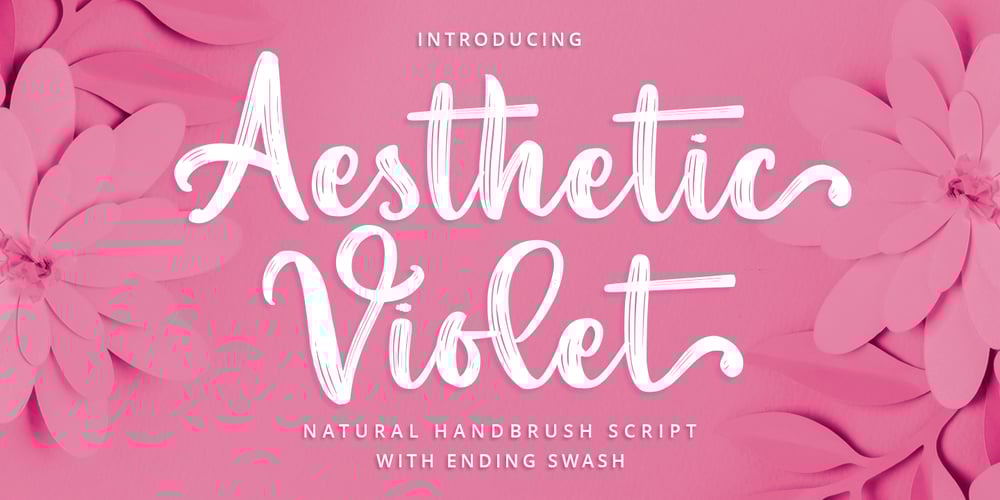
Aesthetic Violet Font Family was designed by Abo Daniel and published by Abo Daniel. Aesthetic Violet contains 2 styles and family package options. introducingAESTHETIC VIOLET- natural handbrush script -AESTHETIC VIOLET is natural handbrush font with ending swash.It is great for quotes, card, banner, book, social media content, and anything about your project.The ending swash makes this font look so natural. Very easy to access it. You only need to add an underscore twice after the lowercase.This product came in 2 styles, regular and slant.Features:- Uppercase- Lowercase- Ending swash- Number & punctuation- Multilingual- PUA encodedI hope you love it.regards,Abo Daniel Studio